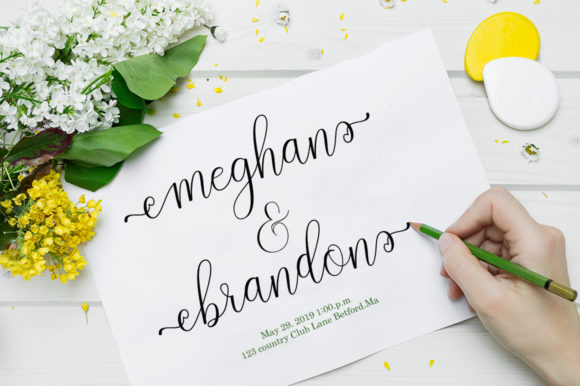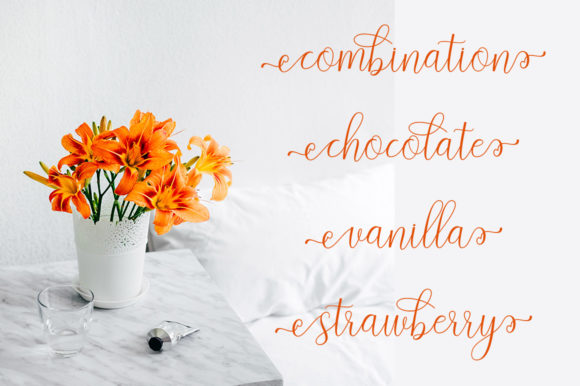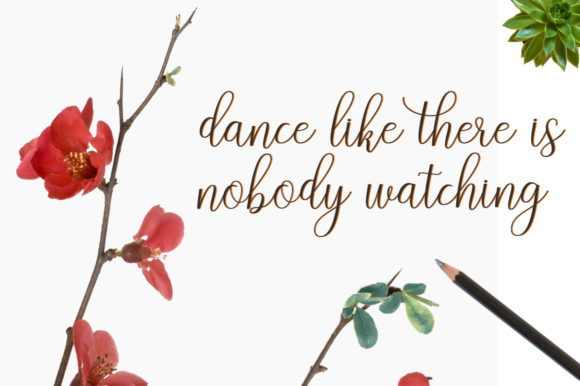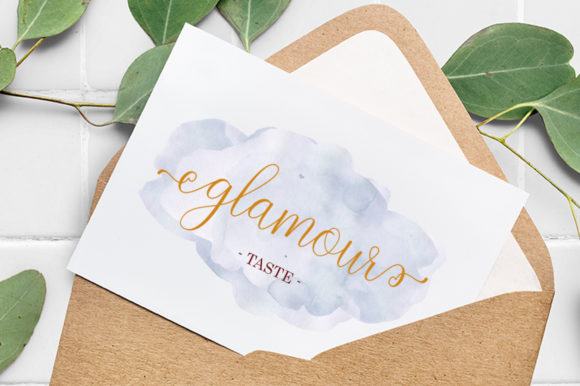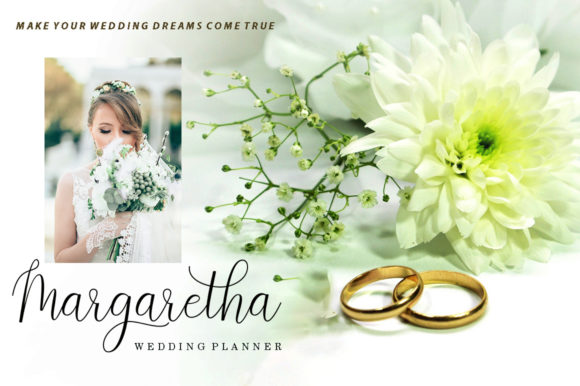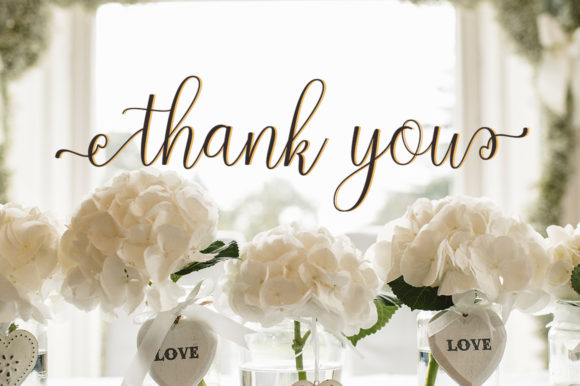
Malisa Font
About Malisa Font
Malisa is a stunning and light handwritten font with a beautiful feel. Get inspired by its unique charm, and turn any design project into a stand out!